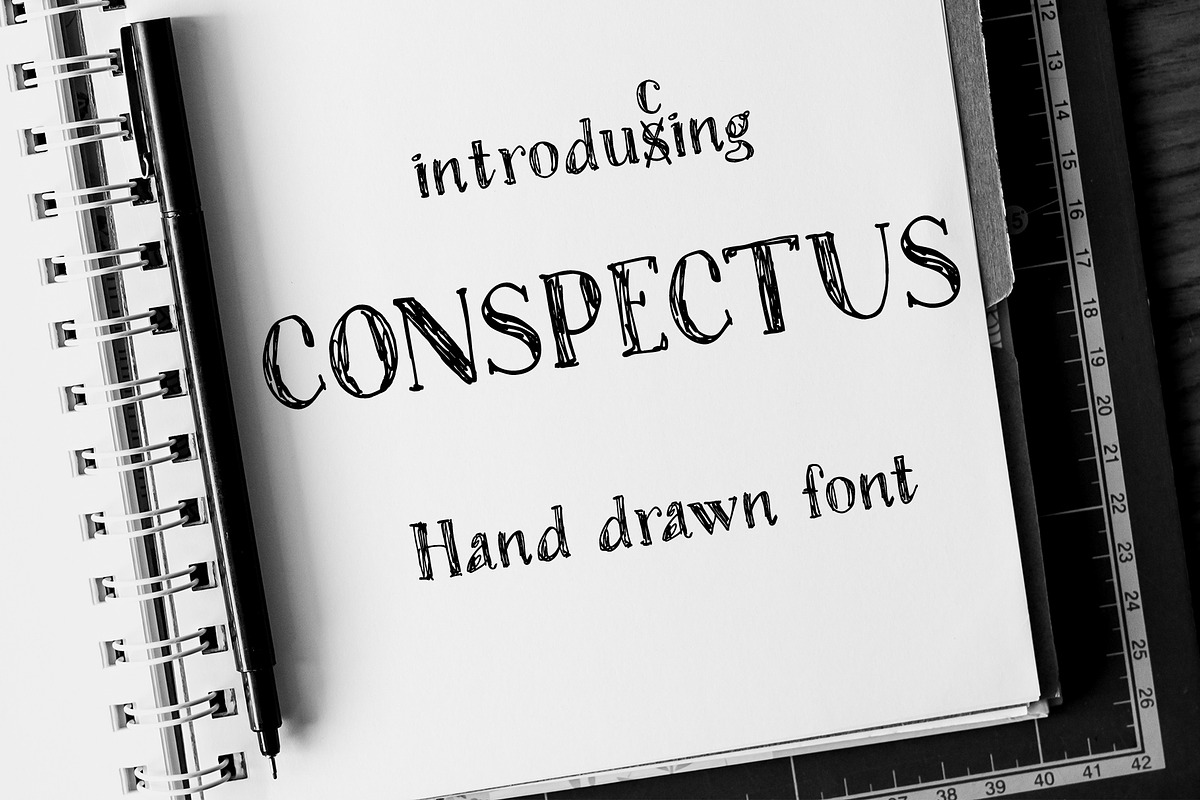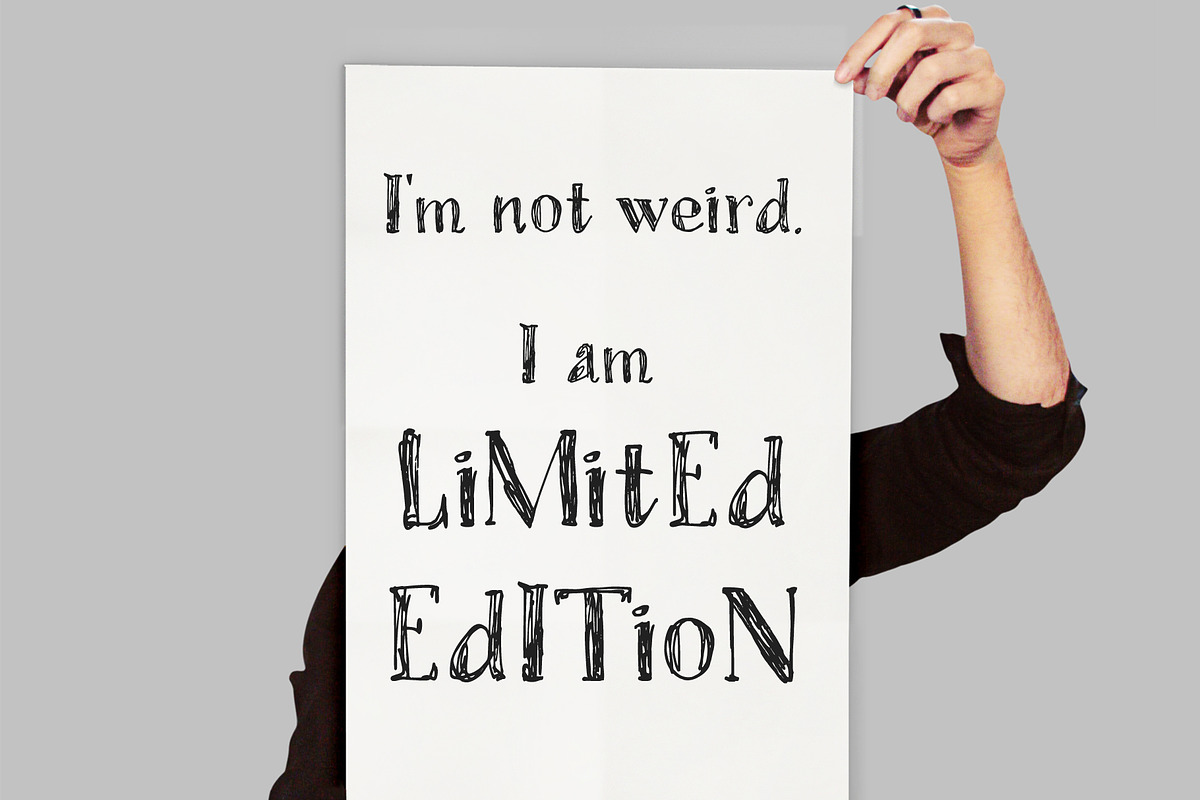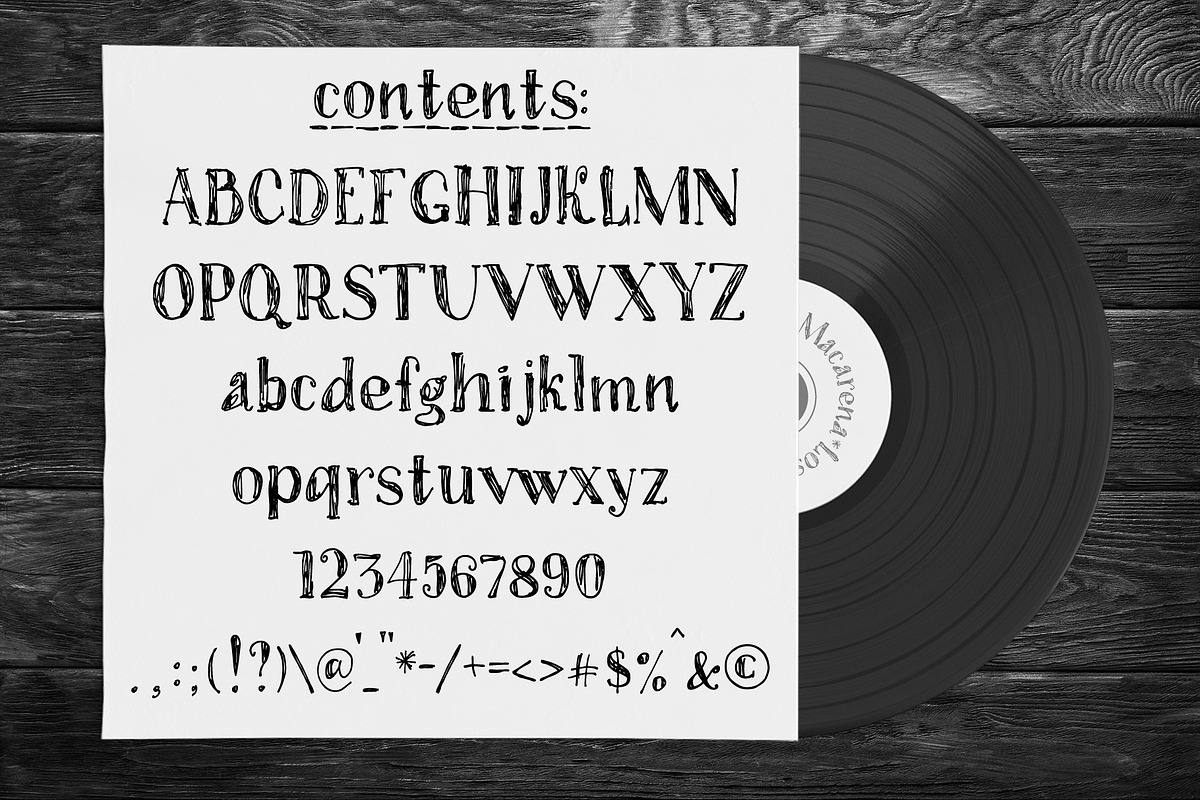
Conspectus | Ink Pen Font
Conspectus is an original font, hand drawn on paper with ink pen. This font has a little bit of funny mood and can bring personality to any project. It can be used in arts & crafts projects, branding, signage and much more.
Uppercase letters (A-Z)
Lowercase letters (a-z)
Numeric characters (0-9)
26 basic punctuation glyphs